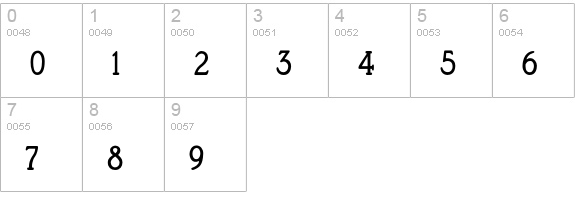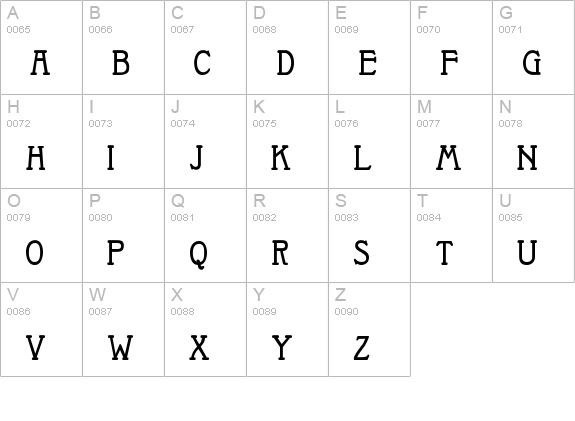
Medina Font Details
Medina font is a stunning typeface that effortlessly blends elegance with modernity. Its sleek lines and stylish curves make it ideal for various design projects, from branding to editorial layouts. This versatile font exudes sophistication and charm, ensuring that your text stands out with a touch of class. What's even better is that Medina font is completely free to download at FontsMarket.com. Yes, you read that right - this premium font can be yours at no cost! So why wait? Elevate your designs with the timeless beauty of Medina font today.